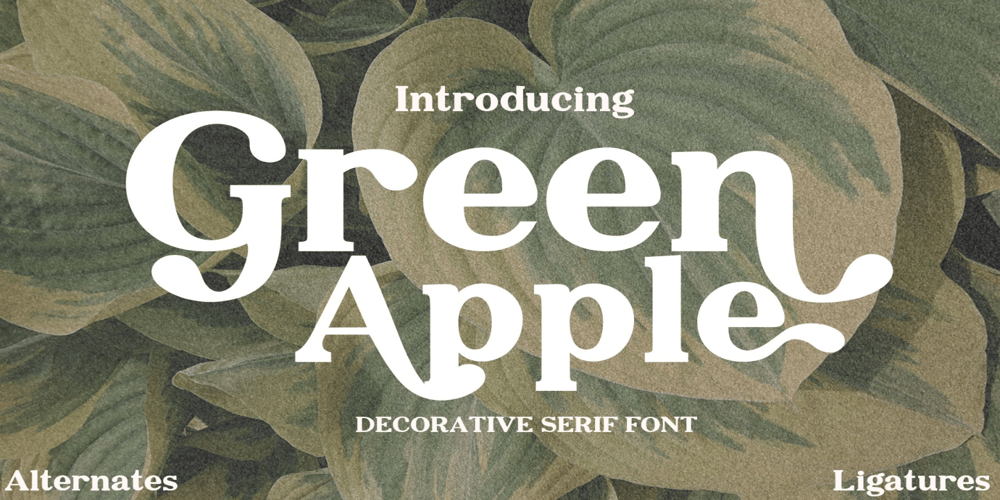
Green Apple
Green Apple font
Green Apple Font Family was designed by Alan A. Blackman and published by Adita Fonts. Green Apple contains 1 styles and family package options. Green Apple is a fun mdoern serif and decorative font that adds a playful twist to any design. With its whimsical letterforms and unique charm, it’s perfect for eye-catching headlines, vibrant posters, and playful branding projects. Infuse your creations with joy and personality with Green apple